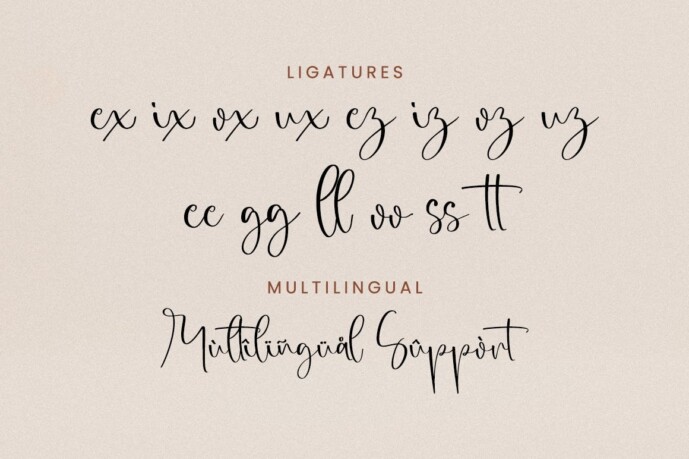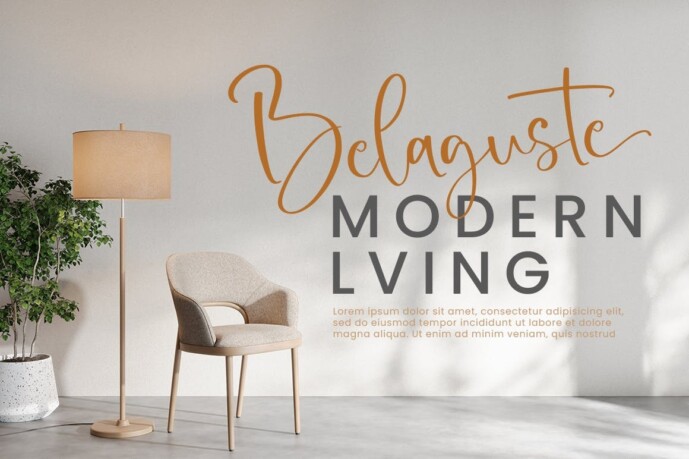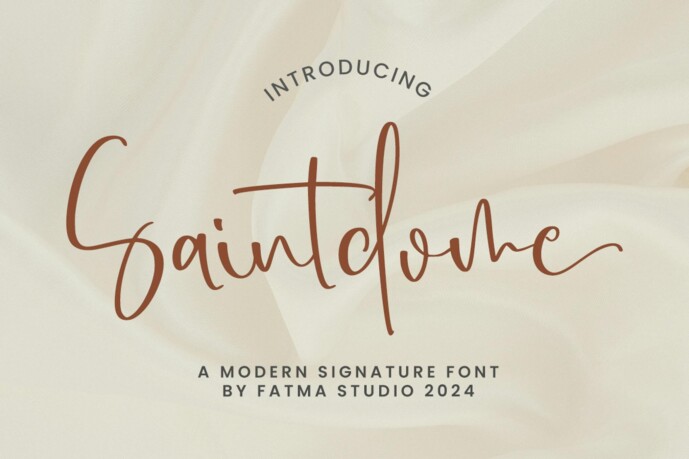
Saintdome Font
Designer: fatmastudio
Saintdome Font is an elegant script font with a contemporary atmosphere and impeccable form, inspired by timeless classic calligraphy. Not too thin and not too thick, balanced and varied, this font was designed to enhance the beauty of your projects.